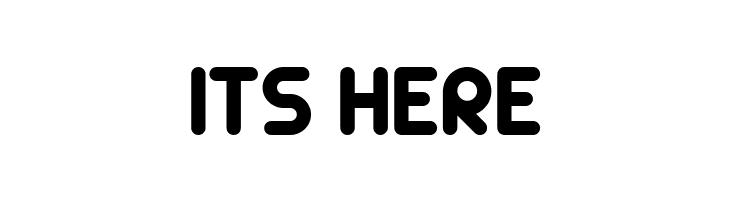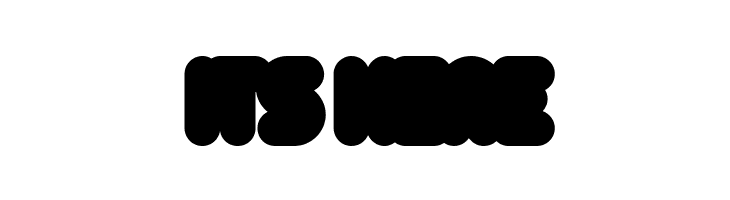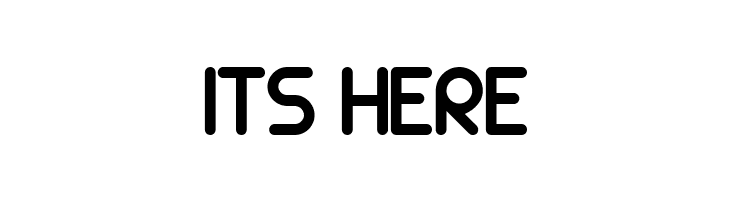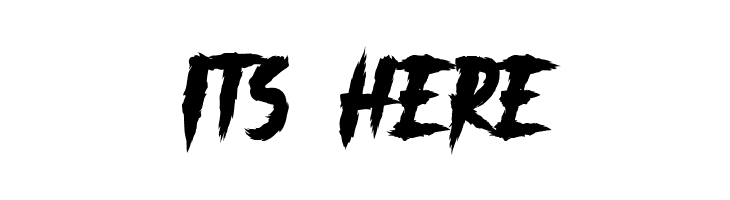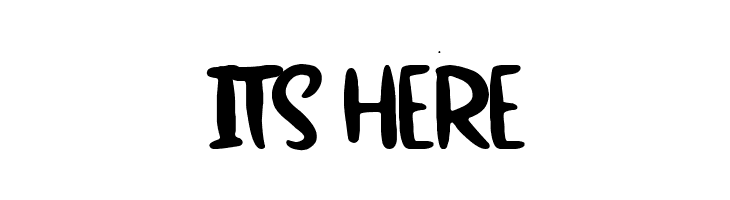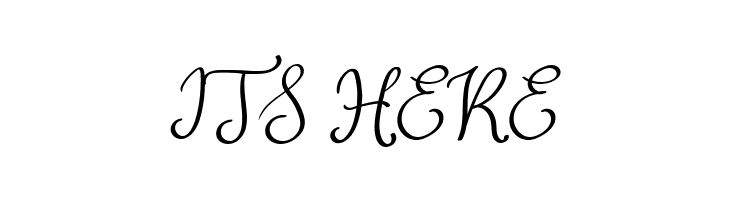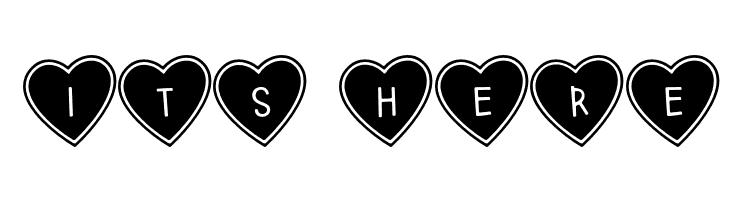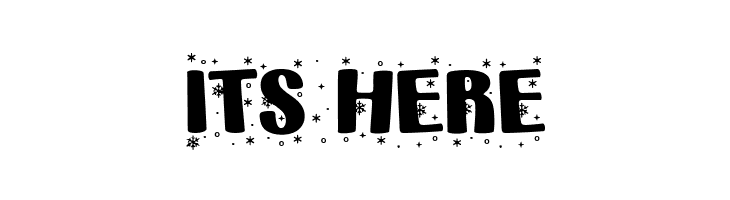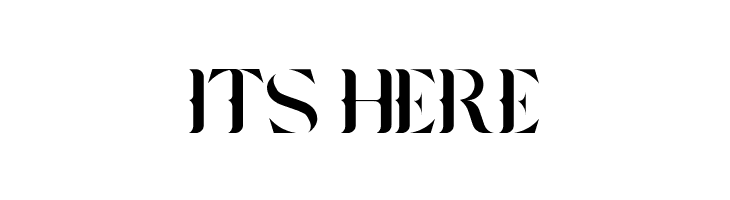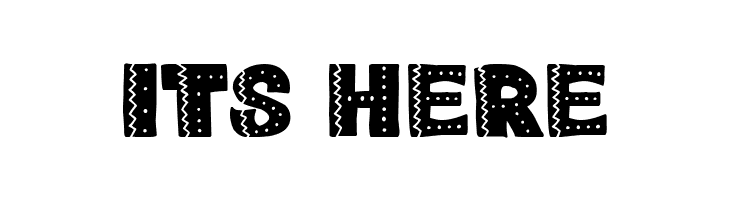
A playful, hand-drawn font with elongated, quirky letterforms.
A playful and dynamic script font with a handwritten feel.
A dynamic and elegant script font with flowing curves and a modern touch.
A bold, brush-style font with a dynamic and handcrafted appearance.
A bold, ornate blackletter font with a medieval flair.
A bold, jagged font with a chaotic and energetic style.
A festive, snowflake-adorned font perfect for holiday-themed designs.
A playful, handwritten font with varied stroke thickness and a casual style.
A bold, high-contrast font with sharp angles and dynamic style.
A bold, expressive handwritten font with dynamic strokes and artistic flair.
A bold, decorative font with playful patterns and a lively style.
A decorative font with letters encased in book spines, offering a playful and thematic design.
Distressed, angular display font with medieval and rugged character.
A bold, playful font inspired by school bus signage with a geometric, rounded style.
An elegant, cursive font with flowing, artistic strokes and intricate flourishes.
A decorative, medieval-style font with ornate, scroll-like characters.
A decorative font with characters enclosed in heart shapes, ideal for romantic themes.
A playful, hand-drawn font with a whimsical and informal style.
A playful, bold, hand-drawn font with thick outlines and a cartoonish style.
A rugged, distressed font with a hand-drawn, vintage style.
A bold, textured decorative font with a vintage, handcrafted feel.
A bold, sans-serif font with characters enclosed in smartphone-like frames.
A playful and romantic cursive script font with elegant, flowing strokes.
A bold, distressed stencil font with a vintage, industrial feel.
A playful handwritten font with a whimsical and casual style.
A bold serif font with a classic, festive banner style.
A modern, bold font with rounded edges and a playful style.
A bold, rounded, and heavily filled font with a modern and playful style.
A modern, rounded sans-serif font with a clean and minimalist style.
A modern, geometric sans-serif font with a sleek, condensed design.
A tall, slender serif font with elegant, elongated characters.
A bold, playful handwritten font with thick strokes and a casual feel.
A playful, bold, and whimsical font with a hand-drawn aesthetic.